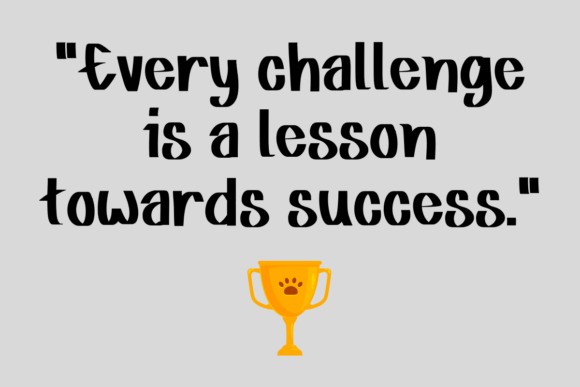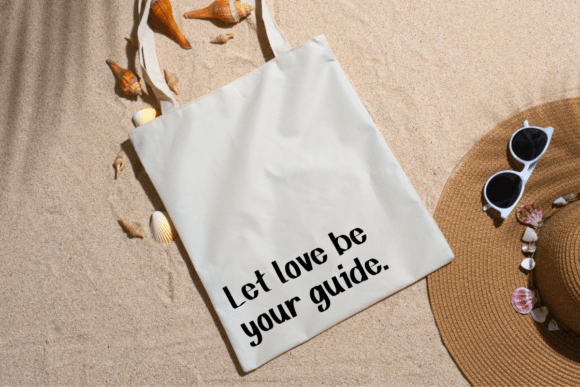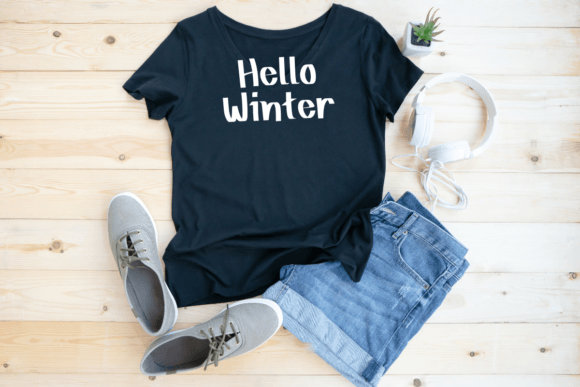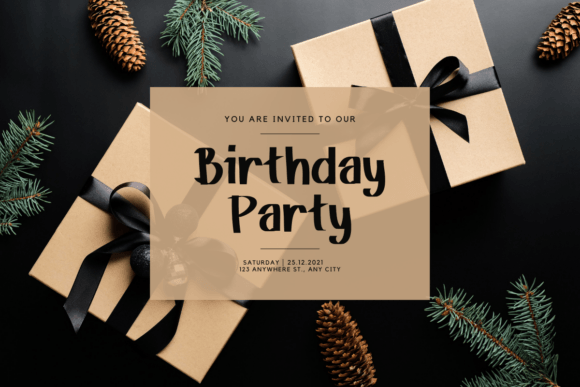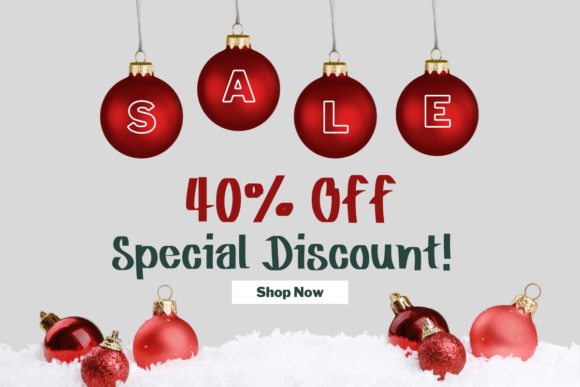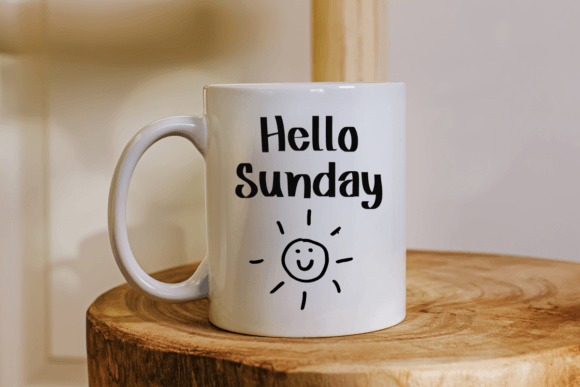
Unleash Your Creativity with Black Kitten Font: The Ultimate Display Handwritten Font
Are you on the hunt for a font that can elevate your digital note-taking experience and add a touch of personality to your projects? Look no further than the Black Kitten Font, a bold and versatile display handwritten font that’s perfect for designers, crafters, and anyone looking to add a bit of whimsy to their work.
What is Black Kitten Font?
Black Kitten Font is a unique and eye-catching display handwritten font that’s designed to make a statement. Its bold and expressive letters are perfect for adding a touch of personality to your digital notes, designs, and projects. Whether you’re a designer, crafter, or simply someone who loves to stay organized, this font is sure to become your new go-to.
The Versatility of Black Kitten Font
One of the best things about Black Kitten Font is its versatility. This font can be used for a wide range of projects, from digital note-taking to Procreate designs, blog posts, logos, branding, digital planners, invitations, greeting cards, photo albums, and much more. Its flexibility makes it an excellent choice for anyone who likes to experiment with different creative projects.
Perfect for Digital Note-Taking
Black Kitten Font is a game-changer for digital note-taking. Its bold and clear letters make it easy to read and write, even on smaller screens. Whether you’re using a digital planner, journal, or note-taking app, this font is sure to make your notes stand out.
Ideal for Procreate Designs
If you’re a Procreate user, you’ll love the way Black Kitten Font works with this popular design app. The font’s bold and expressive letters are perfect for adding text to your Procreate designs, from inspirational quotes to fun and playful phrases.
Elevate Your Blog Posts and Social Media
Black Kitten Font is also an excellent choice for bloggers and social media enthusiasts. Its bold and eye-catching letters are sure to grab the attention of your readers and make your content stand out in a crowded online space.
Using Black Kitten Font for Logos and Branding
If you’re looking to create a logo or brand identity, Black Kitten Font is an excellent choice. Its unique and memorable letters can help you create a brand that stands out from the competition.
Create Beautiful Digital Planners and Invitations
Black Kitten Font is also perfect for creating digital planners, invitations, and greeting cards. Its bold and clear letters make it easy to read and write, even on smaller screens.
Black Kitten Font is a versatile and eye-catching display handwritten font that’s perfect for designers, crafters, and anyone looking to add a bit of whimsy to their work. Its bold and expressive letters make it ideal for a wide range of projects, from digital note-taking to Procreate designs, blog posts, logos, branding, digital planners, invitations, greeting cards, photo albums, and much more. So why wait? Download Black Kitten Font today and start unleashing your creativity!
Whether you’re a seasoned designer or a crafty beginner, Black Kitten Font is sure to become a favorite in your font collection. So go ahead, get creative, and see what amazing projects you can come up with using this fantastic font!